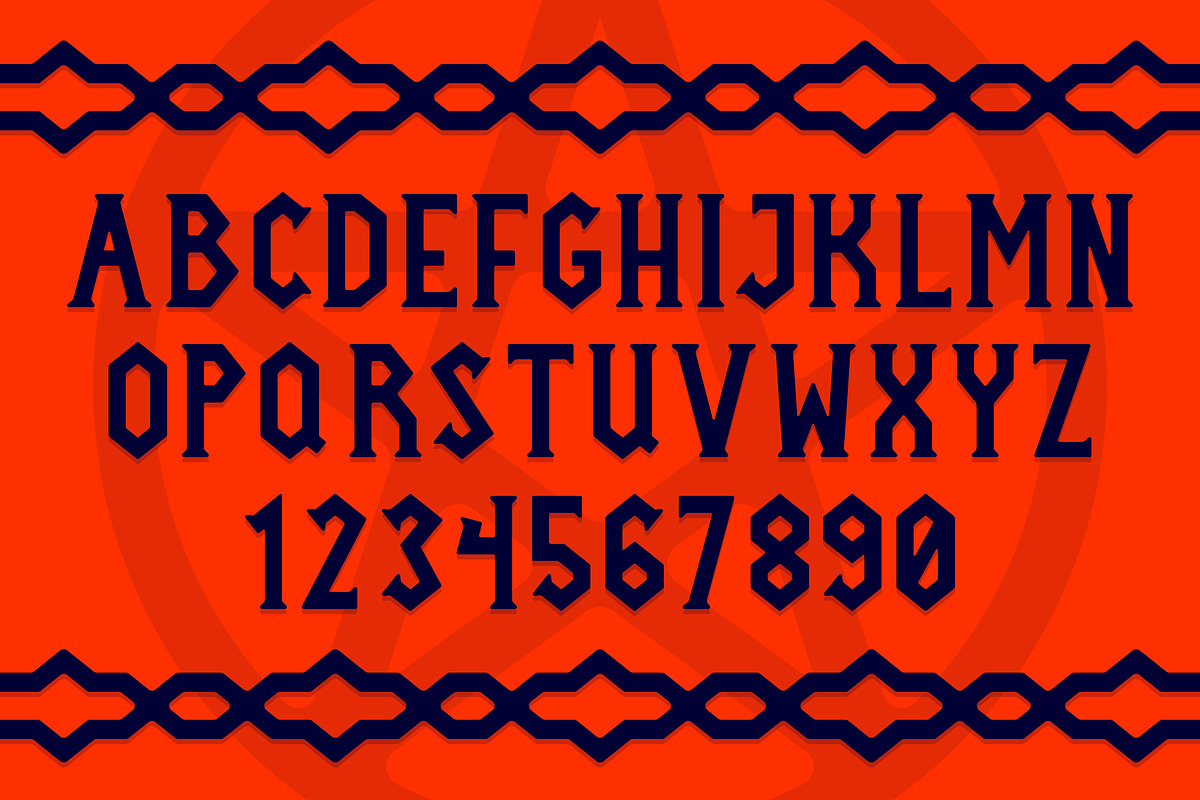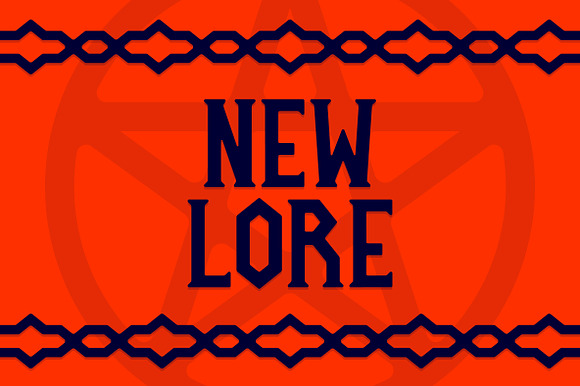
New Lore - A Gothic Serif Font
A soft gothic serif font inspired by my favorite stuff and things. Great for layouts, invitations, logos, apparel, or artwork.
- It contains an uppercase alphabet with numbers.
New Lore - A Gothic Serif Font by Kritzmire fits naturally into Branding, posters, packaging, typography.